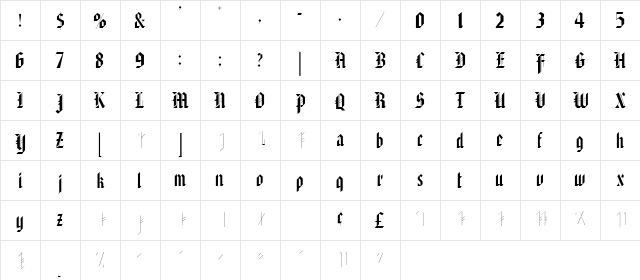
Alaric SSi Regular
Design Context for Alaric SSi Typeface
Alaric SSi takes a measured approach to typography — its balanced proportions and neutral character make it a reliable workhorse for both digital and print work.